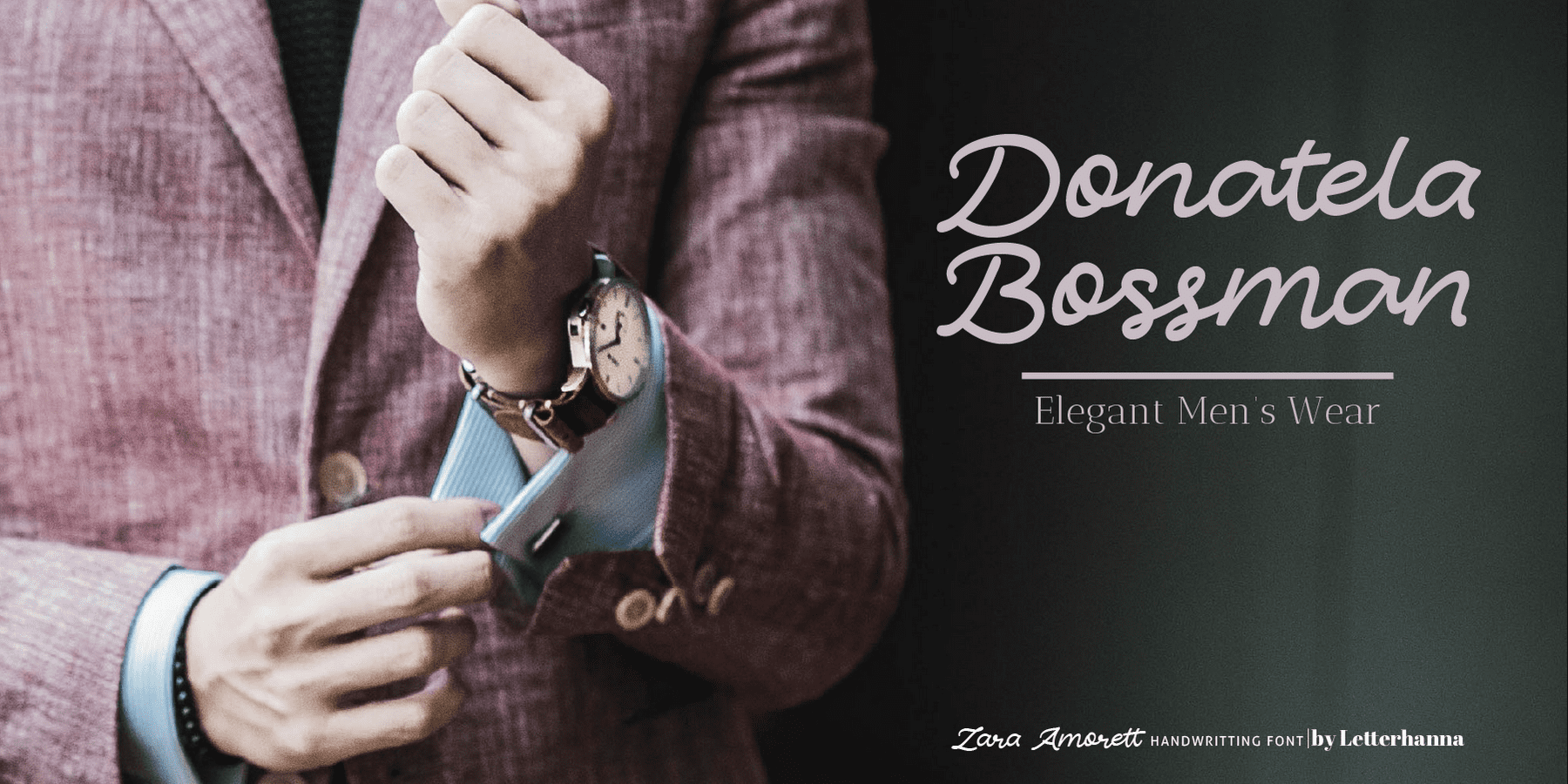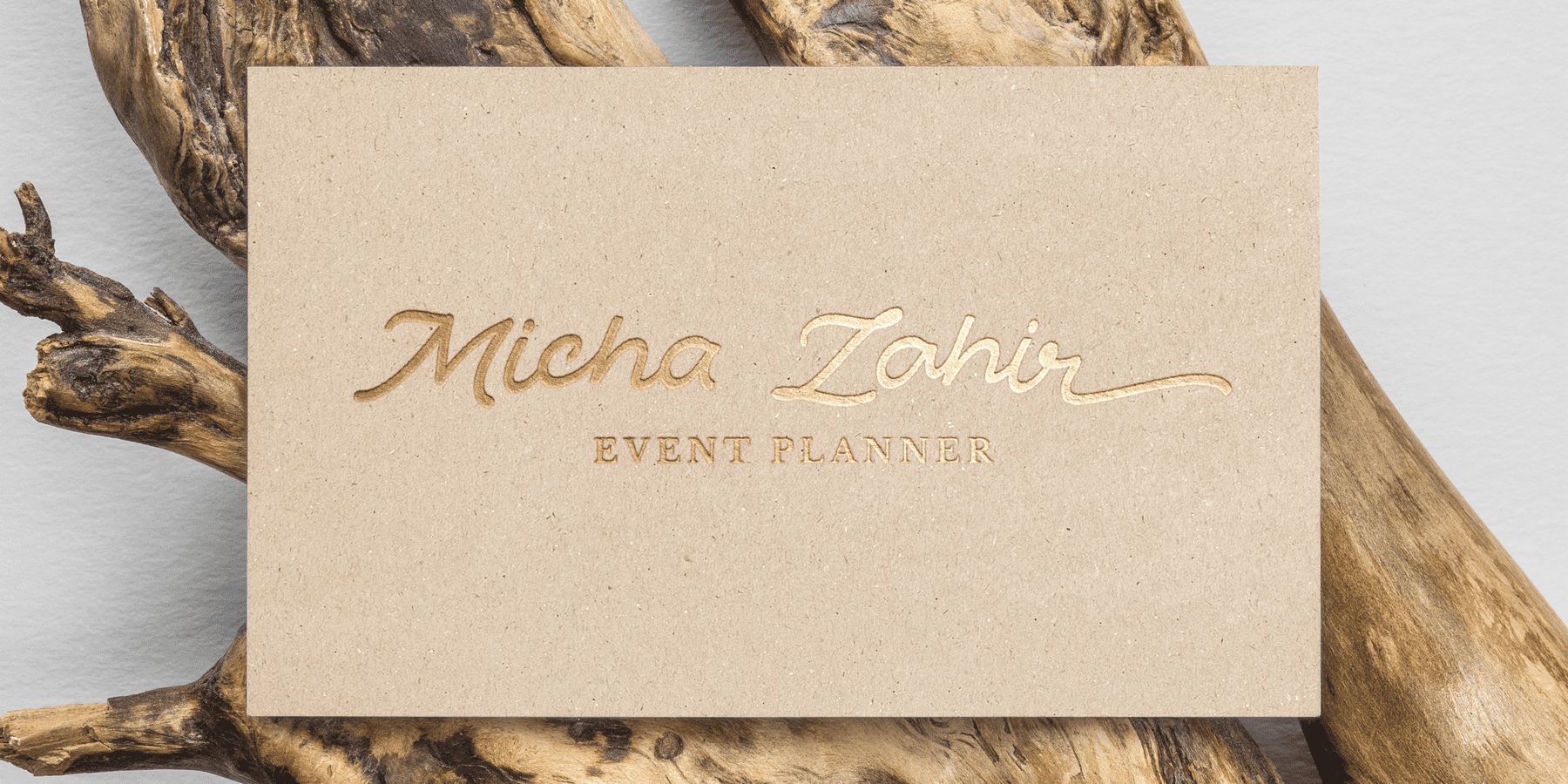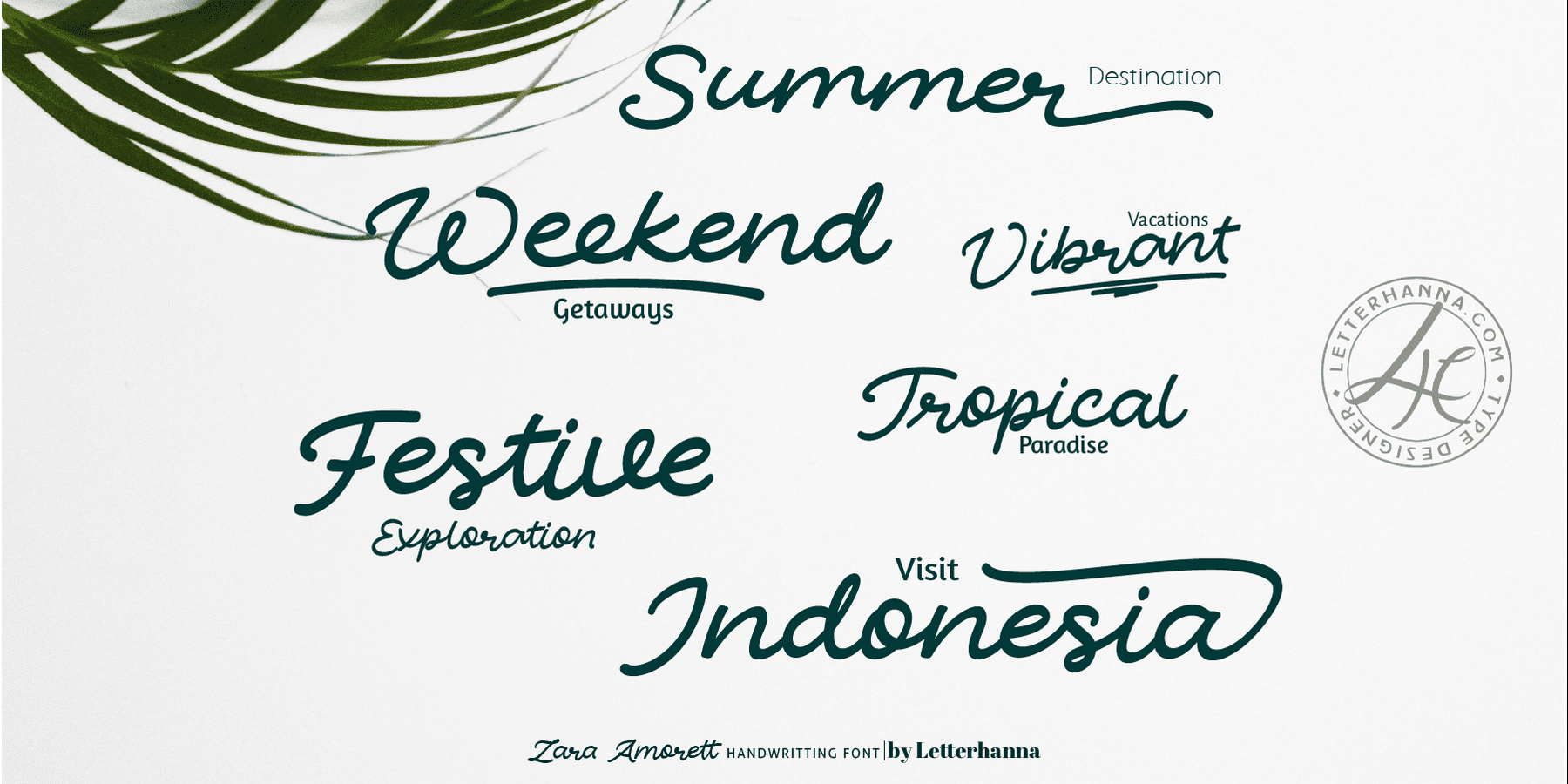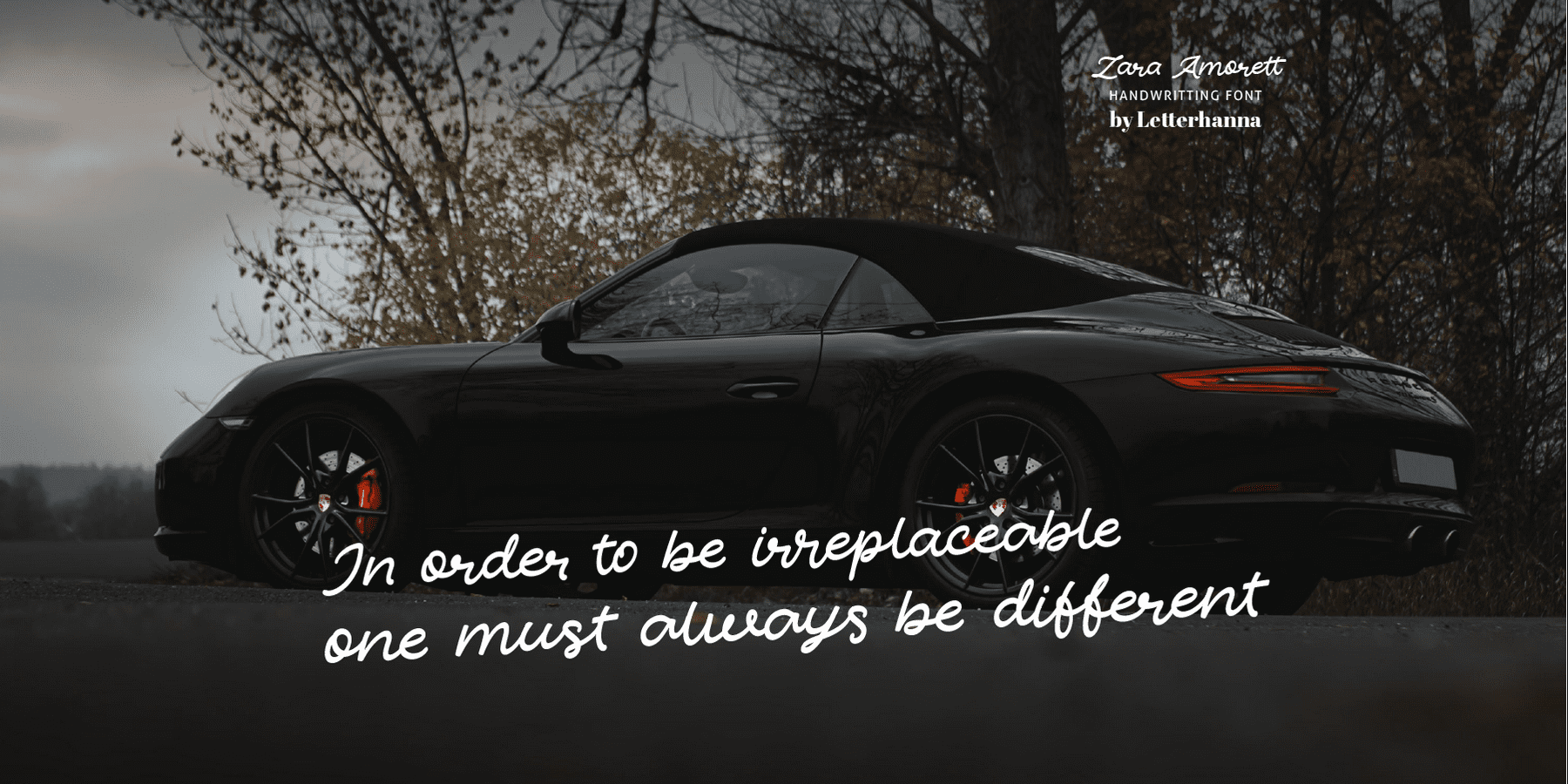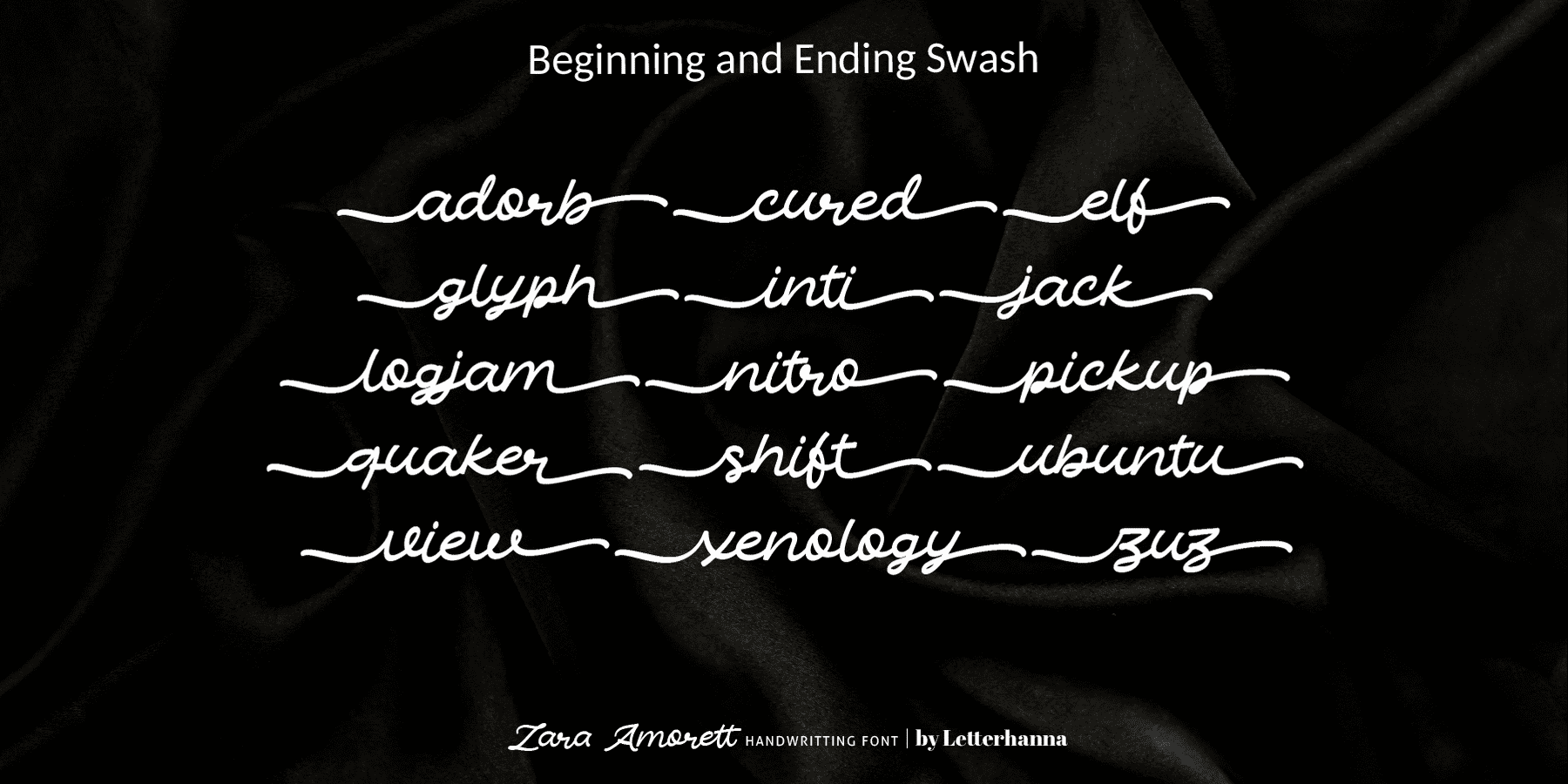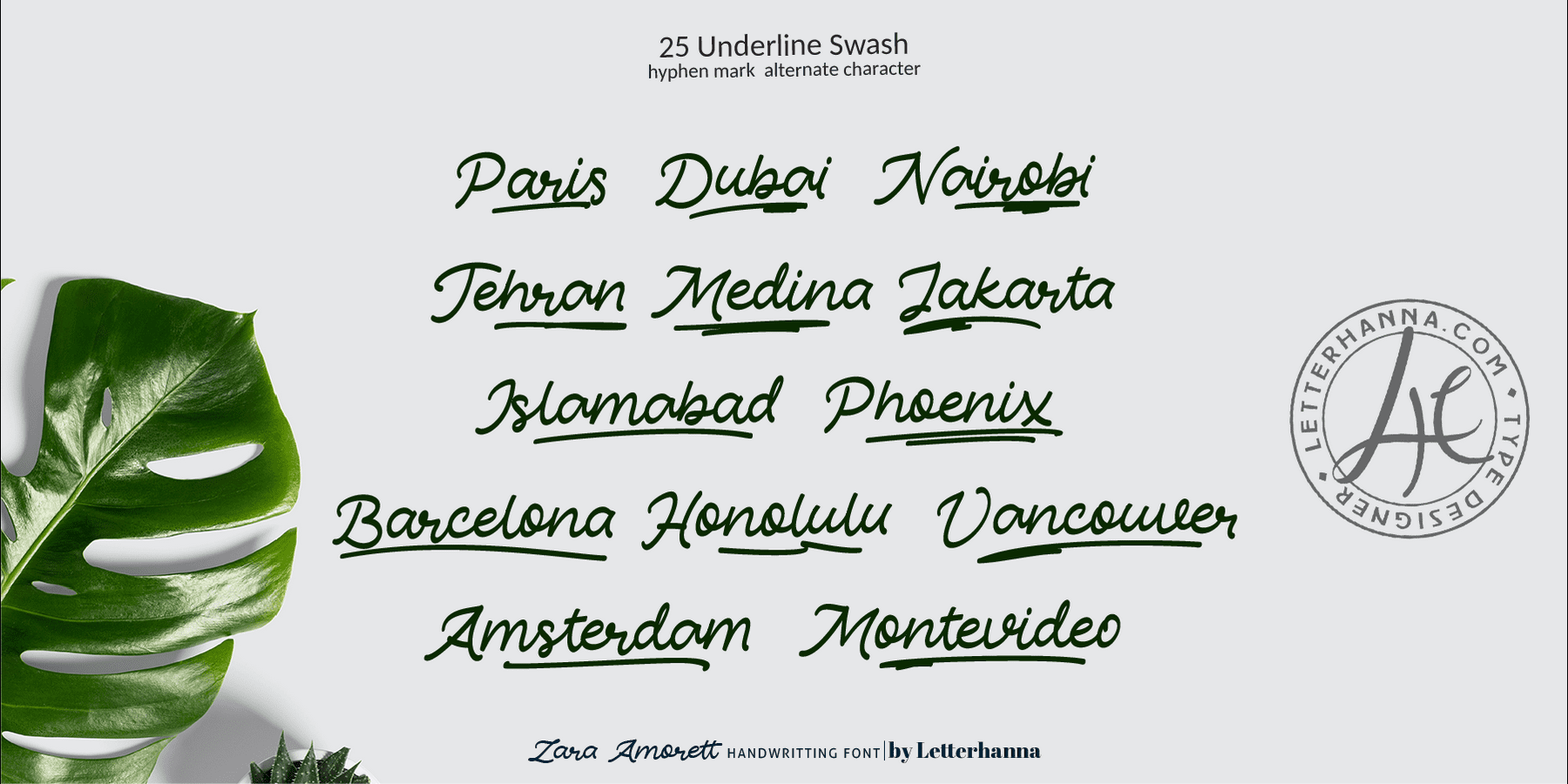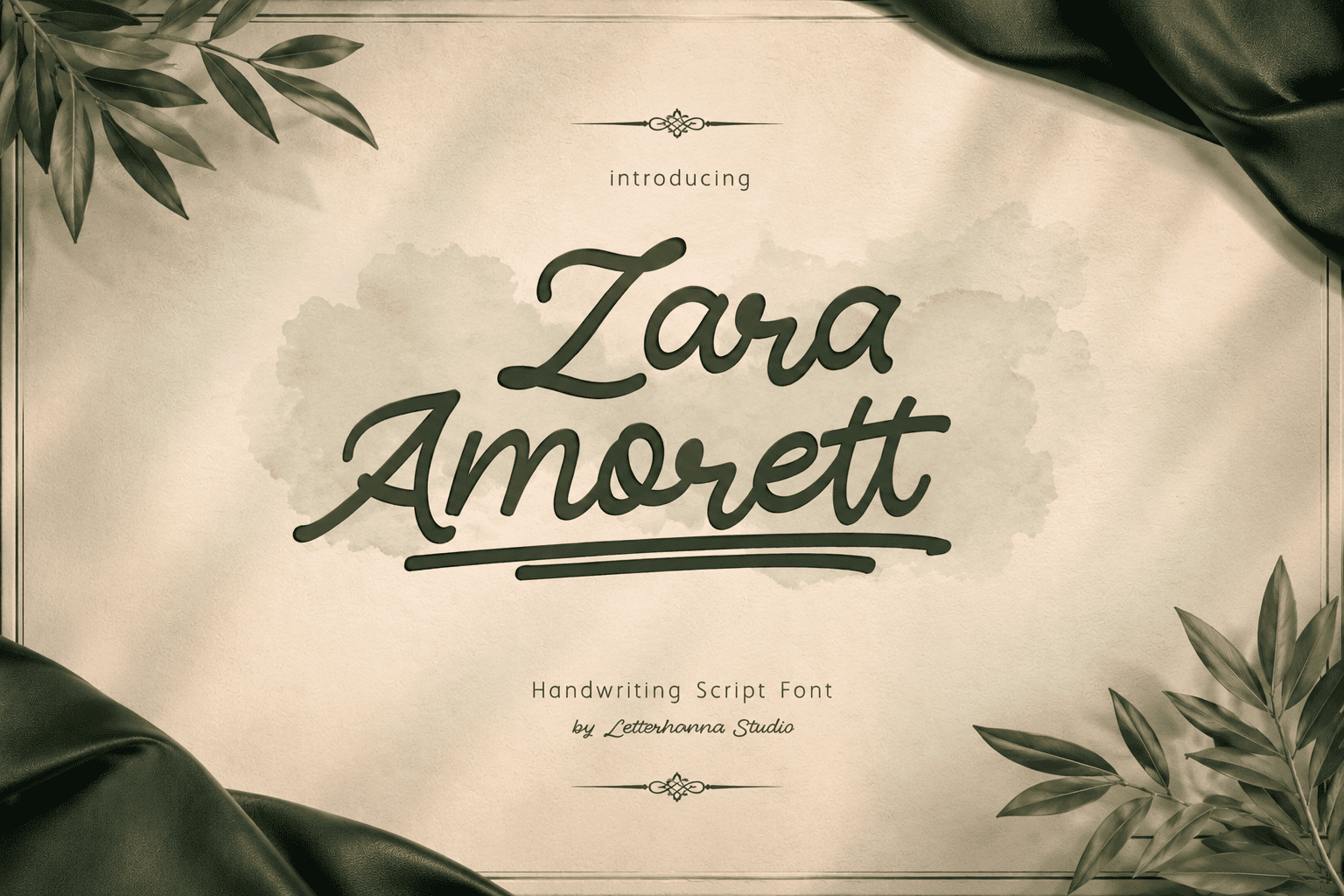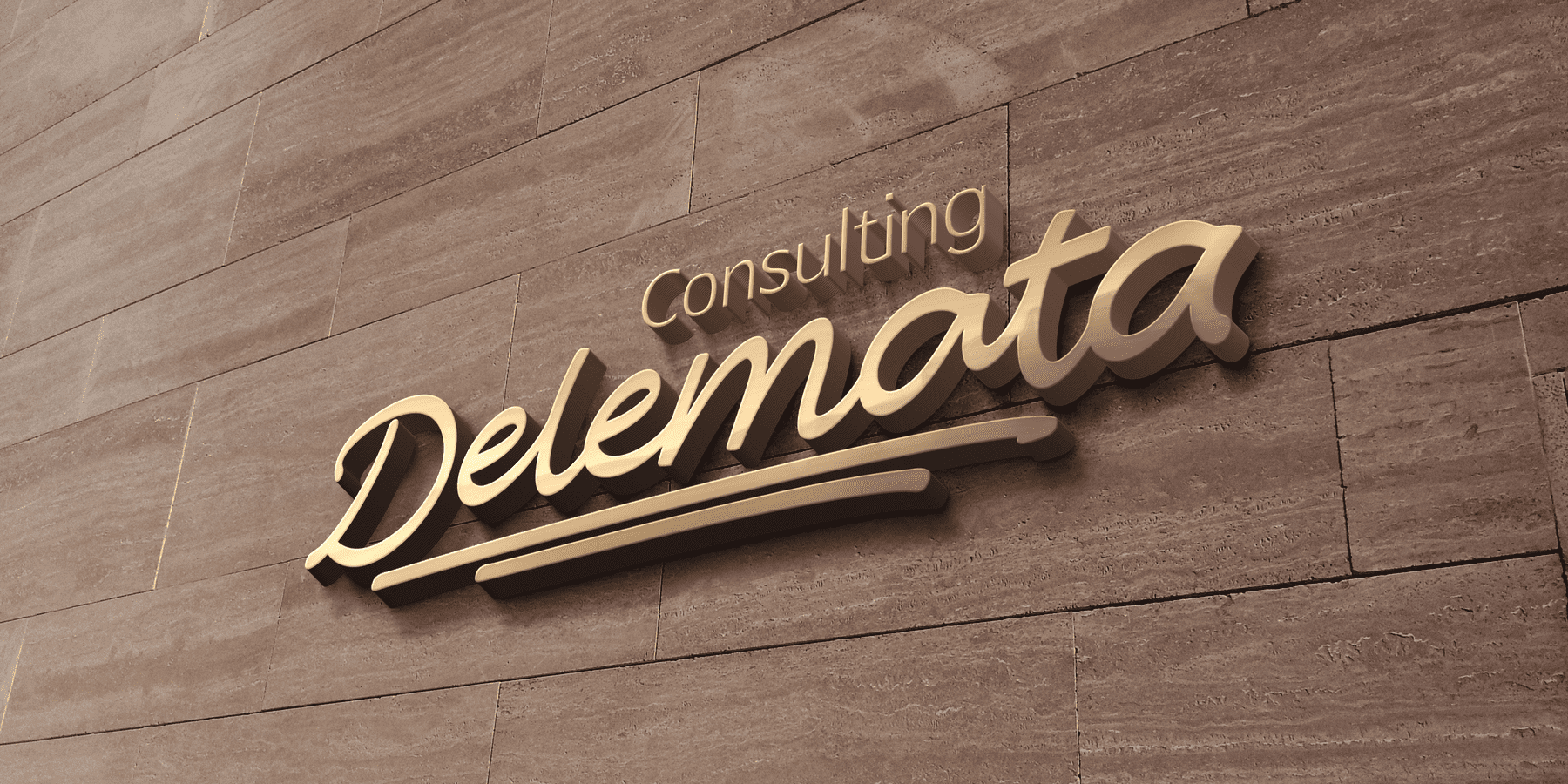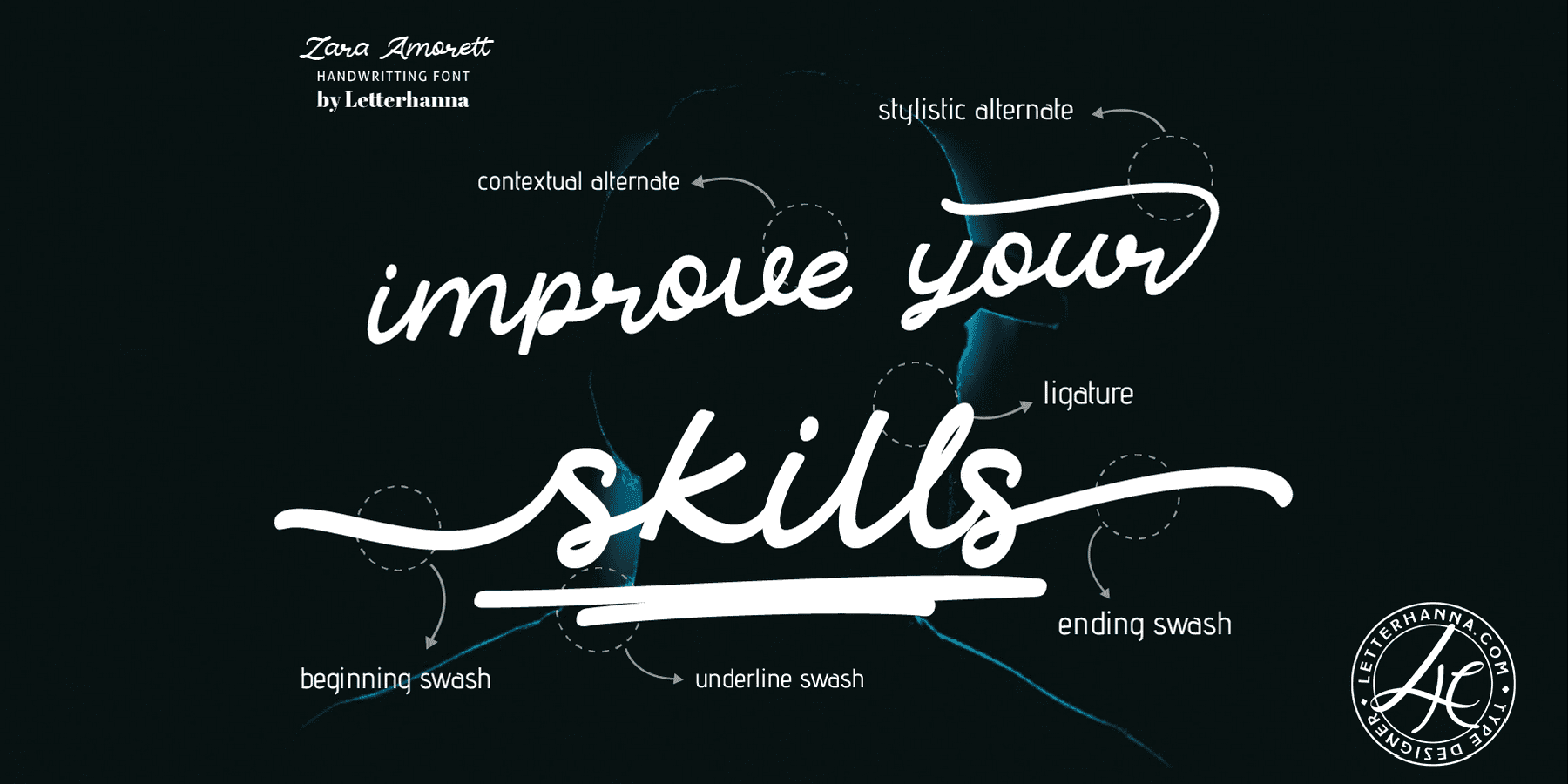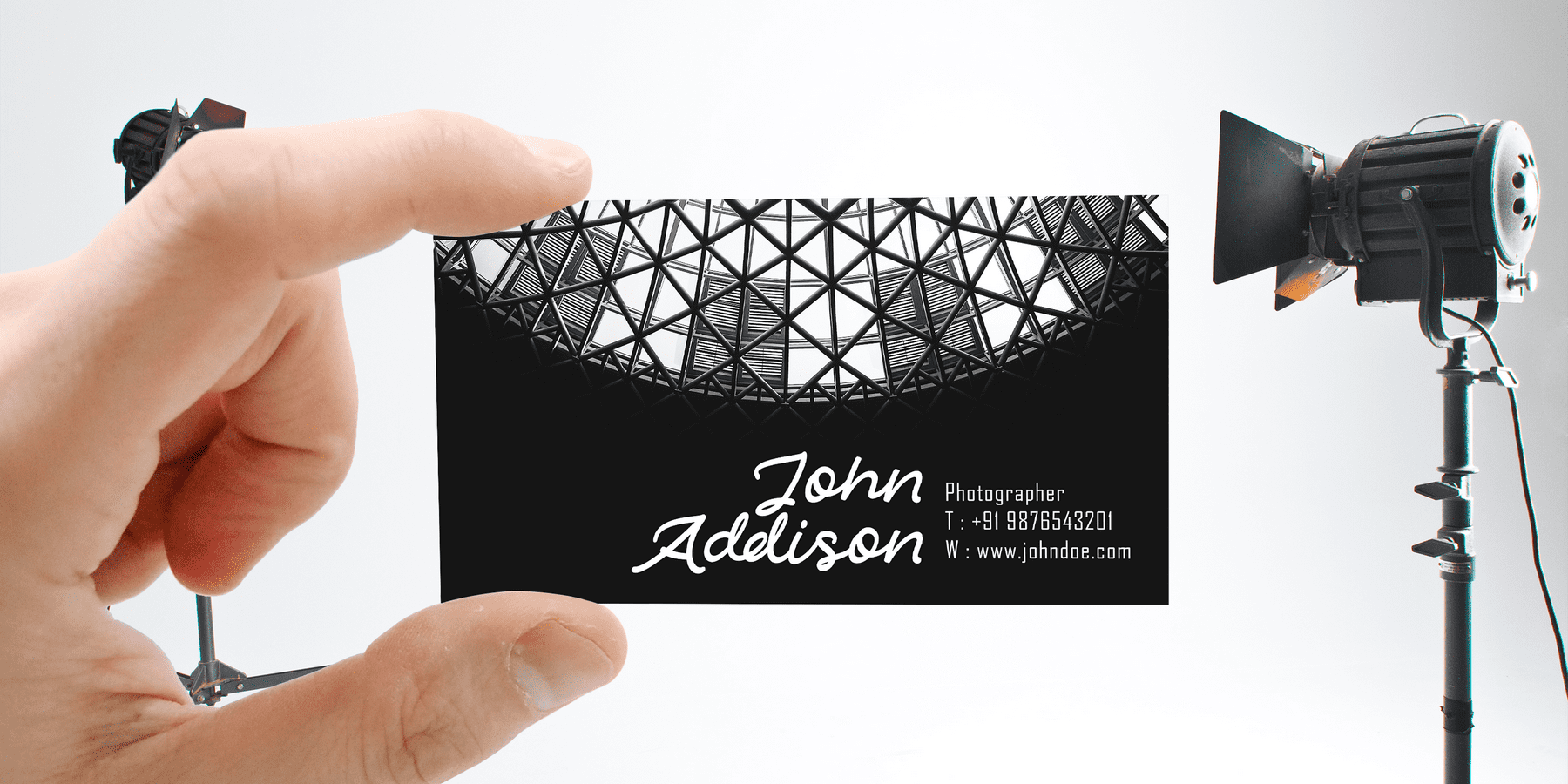
Zara Amorett is a modern urban handwritten script. Heavy and rounded shape. Zara Amorett’s attractive letterforms can be enhanced with extravagant swash, alternates, and endings. Complement your design with 24 underline swash. Try mixing your design with this font. Don’t hesitate to pair it with serif or serif in your work idea. Find interesting layouts to complement your project.
Zara Amorett Handwritten Script Font contains a full set of lower & uppercase letters, a large range of punctuation, numerals, and multilingual support. Zara Amorett was created to look as close to a natural handwritten script as possible by including natural-looking ligatures, and 2 full set of lowercase alternates.
Zara Amorett also comes with more OpenType features like Stylistic Alternates, beginning-of-word swashes and end-of-word swashes.
– Uppercase and Lowercase letters
– Numbering and Punctuations
– Multilingual Support
– Ligatures
– Beginning and ending swashes
– Underline swashes
– Stylistic alternate
– Contextual alternate